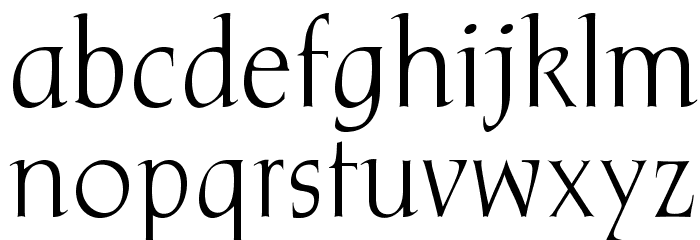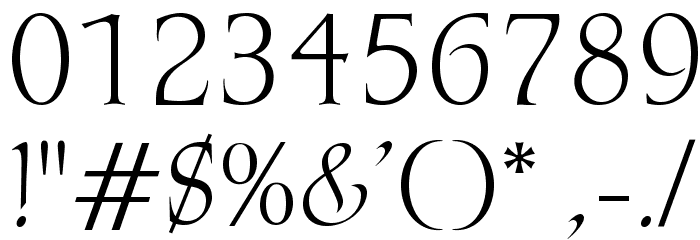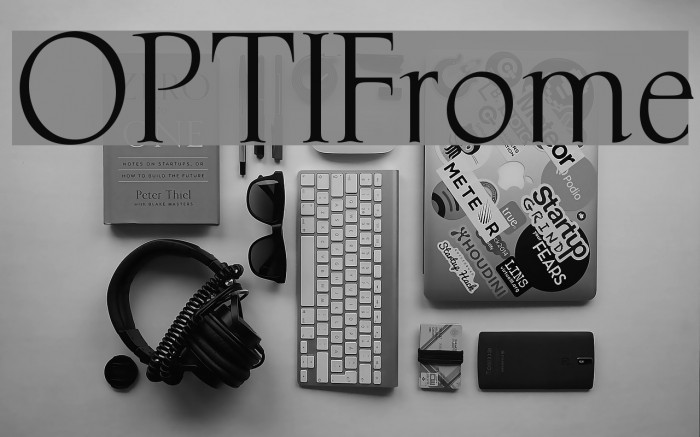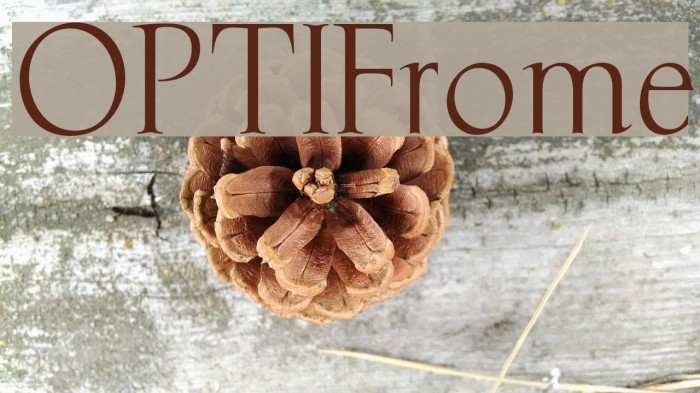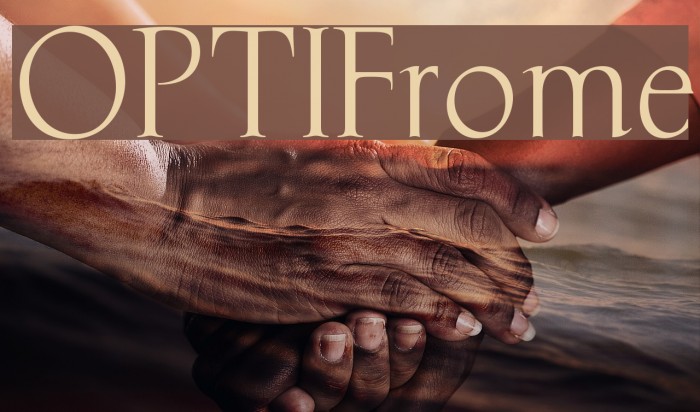
OPTIFrome Font
This font exhibits a classic serif style with elegant, elongated strokes and a refined appearance. The uppercase letters are tall and stately, with a slight flair at the ends of the strokes, giving them a sophisticated and timeless look. The lowercase letters maintain a consistent style, with smooth curves and balanced proportions. The numerals are clear and easy to read, featuring the same elegant serif details. Special characters are thoughtfully designed, maintaining the overall aesthetic of the font. This typeface is ideal for projects that require a touch of elegance and tradition.
A classic serif font with elegant, elongated strokes and a refined appearance.
- Proposed Projects: Ideal for book covers, formal invitations, branding for luxury products, and editorial design.
- Category: Serif
- Overall Style: Classic
- Use Case: Headlines, Body text, Logos